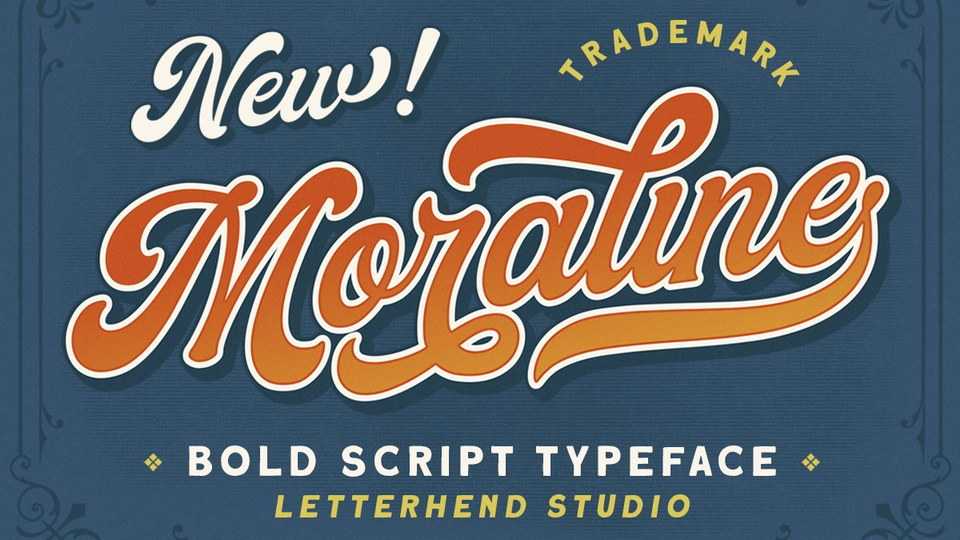
Download Moraline font, a standout bold script typeface with a touch of vintage look and feel. Moraline perfectly made to be applied especially in logo, headline, signage, labels, magazines, books, packaging, fashion or any type of advertising purpose.